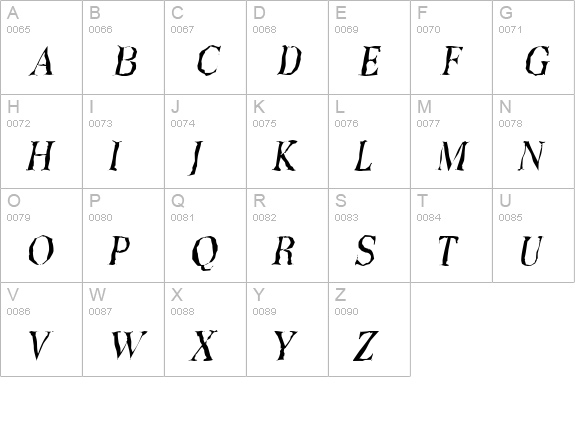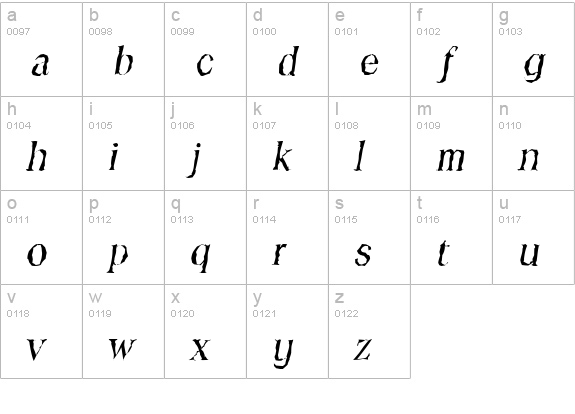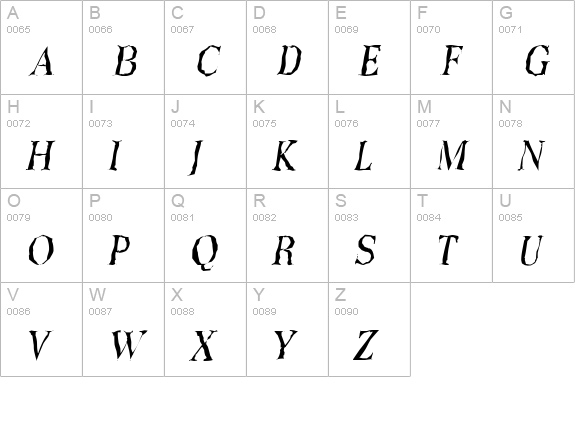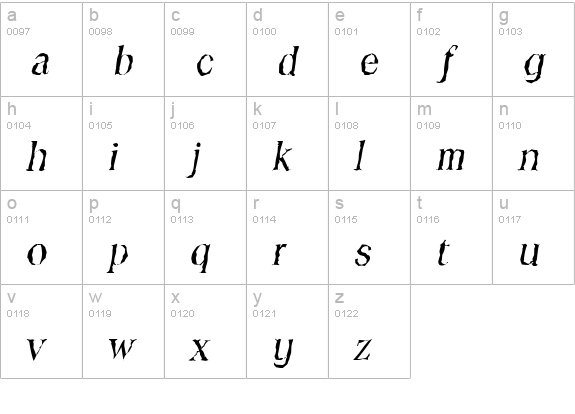
ToledoRandom-Italic is a distinctive, italic variant in the ToledoRandom typeface family \xE2\x80\x94 well suited to design and typography projects.
ToledoRandom-Italic is a unique and stylish font that exudes a sense of creativity and playfulness. The irregular and random design of the letters adds a touch of whimsy to any project. This font is perfect for adding a modern and dynamic element to your designs, whether for branding, advertising, or personal projects. What sets ToledoRandom-Italic apart is its free-spirited and spontaneous feel, making it an excellent choice for those looking to break away from traditional fonts and make a statement. The italicized style adds a sense of movement and energy to your text, making it stand out and draw attention. Best of all, ToledoRandom-Italic is freely available to download at FontsMarket.com, allowing you to easily incorporate this eye-catching font into your creative projects. Don't miss out on the opportunity to enhance your designs with the lively and engaging ToledoRandom-Italic font.